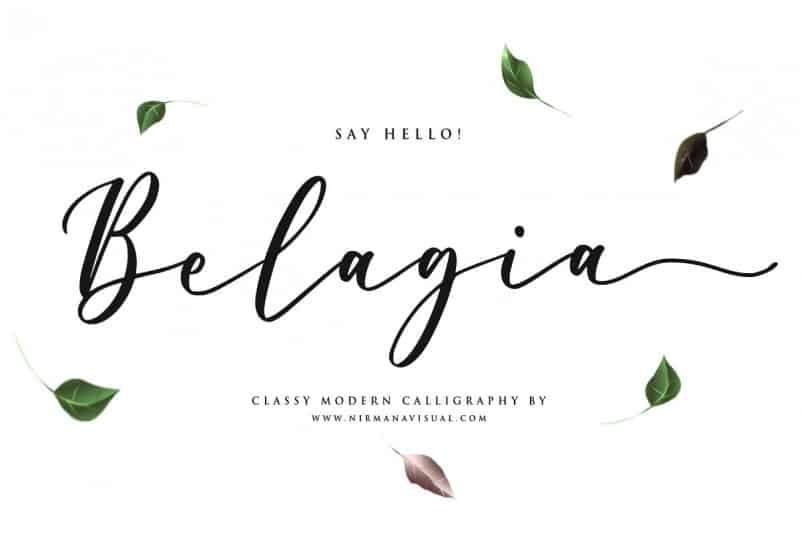
Belagia Calligraphy Font
Hello Font Lovers! Introducing a new product called Belagia Font, It’s a modern beauty calligraphy font. It is slender, feminine and classy, while still maintaining a friendly feel.
It’s a Beautiful script font carefully created with a touch of romantic. This is a beautiful combination of timeless elegance and authentic calligraphy, It has lowercase beginning and ending swashes. It’s will work perfectly for wedding, food, e-commerce brands, trend blogs, boutiques or any business that wants to appear upscale and sweet.